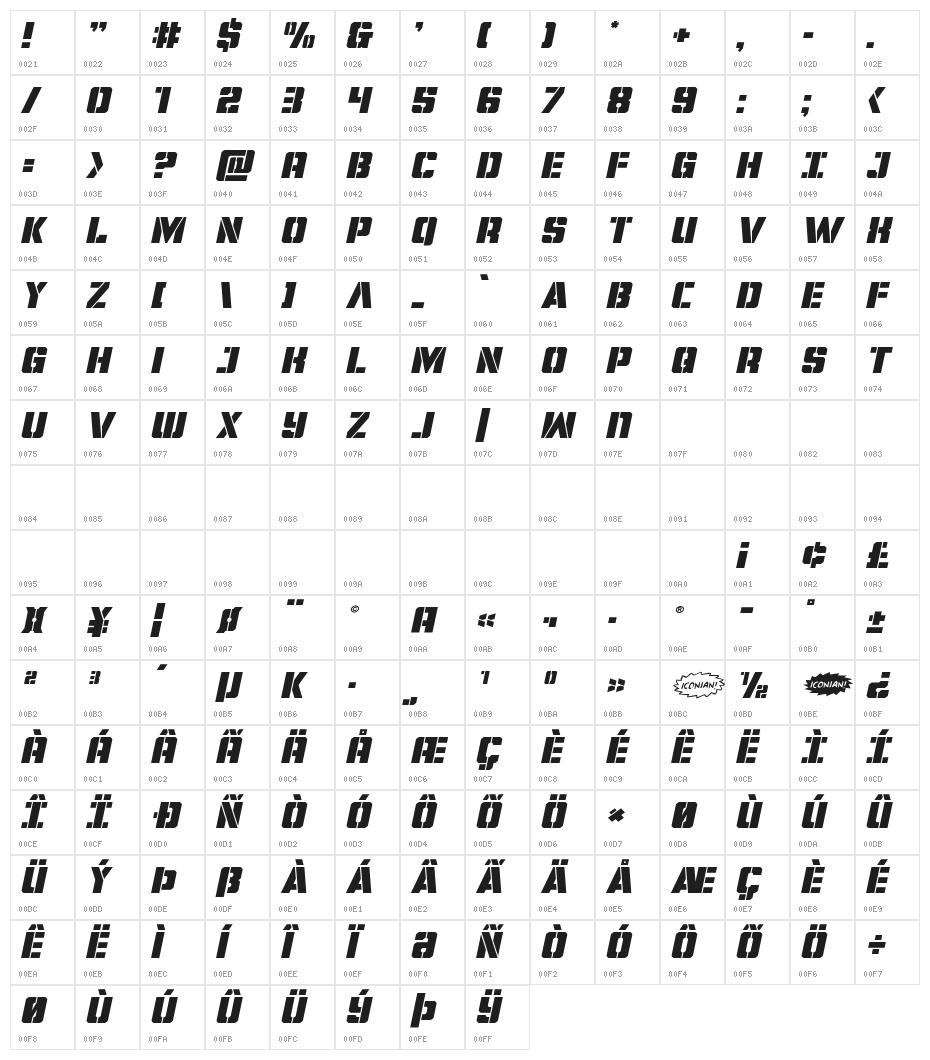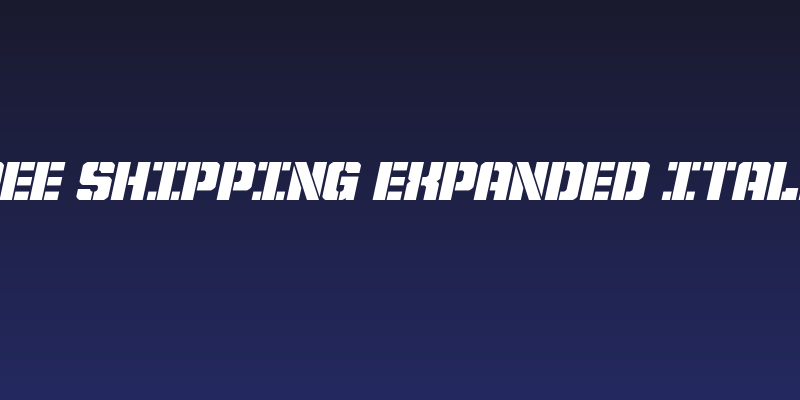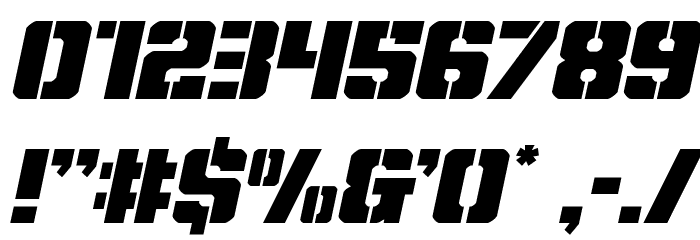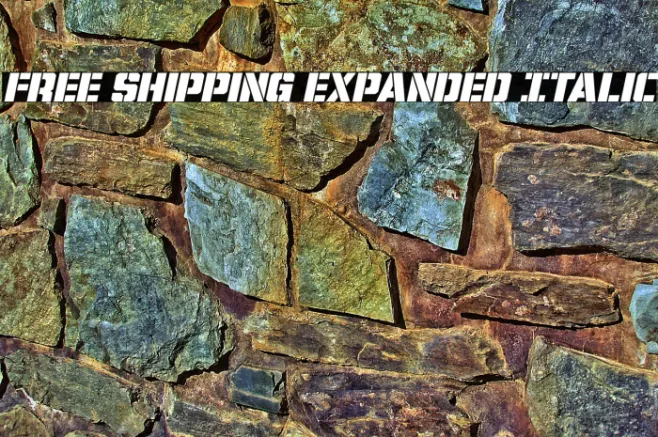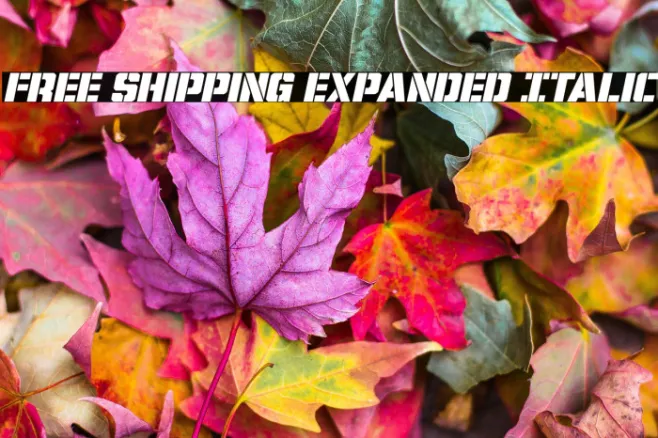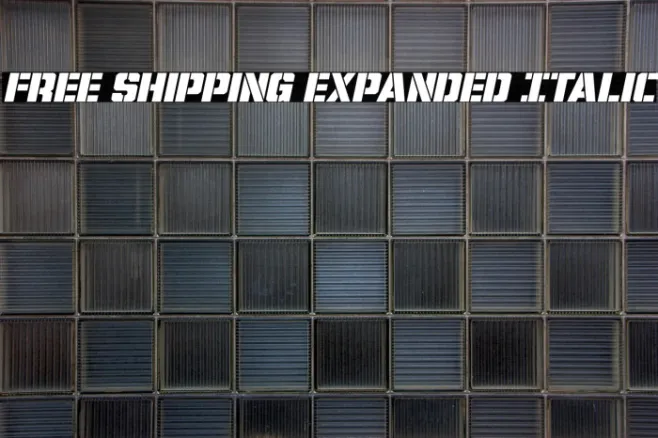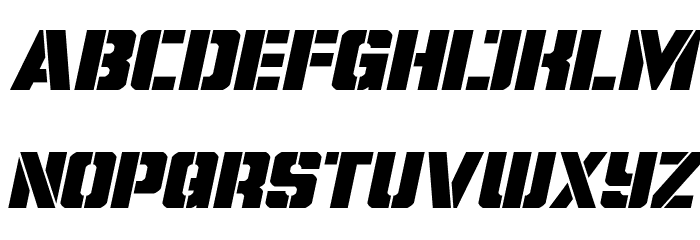
Free Shipping Expanded Italic Font
Free Shipping Expanded Italic Description
This font features a bold, italicized style with a distinctly modern and dynamic appearance. The characters are expanded, giving them a wide stance that enhances their presence on the page. The design incorporates sharp angles and geometric shapes, creating a sense of movement and energy. The uppercase and lowercase letters maintain a consistent style, with the uppercase being particularly striking due to their size and weight. Numbers and special characters follow the same bold and angular design, ensuring uniformity across all text elements. The font's high contrast in stroke thickness adds to its boldness, making it ideal for attention-grabbing headlines or impactful logos.
| Proposed Projects | Ideal for use in branding, advertising, sports team logos, and dynamic poster designs. |